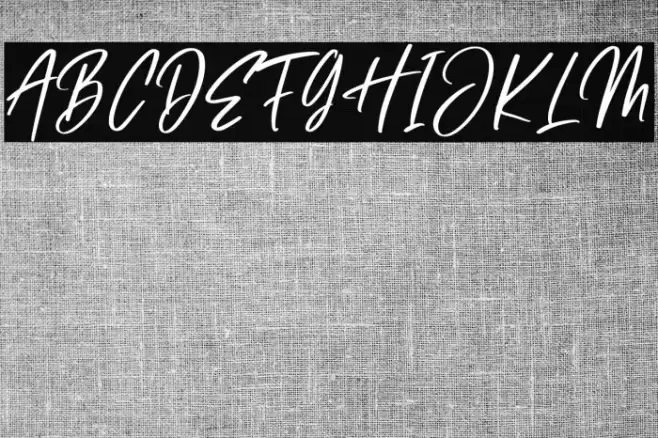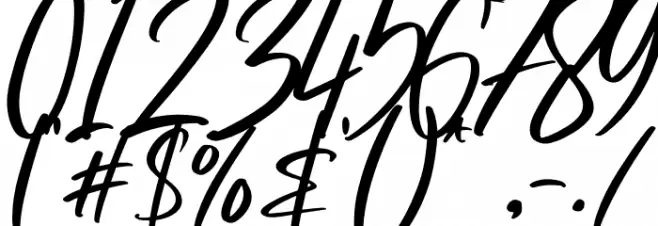
Hollanda Font
Hollanda Description
This font exudes a dynamic and expressive style, characterized by its fluid, cursive script that mimics natural handwriting. The letters are interconnected with smooth, flowing strokes, giving it an elegant and personal touch. The uppercase letters are bold and slightly slanted, while the lowercase letters maintain a consistent flow, enhancing readability. The numerals and special characters follow the same cursive style, ensuring uniformity across all characters. This font is ideal for projects that require a personal, handwritten feel, such as invitations, greeting cards, or branding materials.
A dynamic, cursive script font with fluid, interconnected strokes from Uncategorized fonts.
- Proposed Projects: Ideal for wedding invitations, personal branding, greeting cards, and artistic projects.
- Use Case: Logos, Invitations, Artistic projects